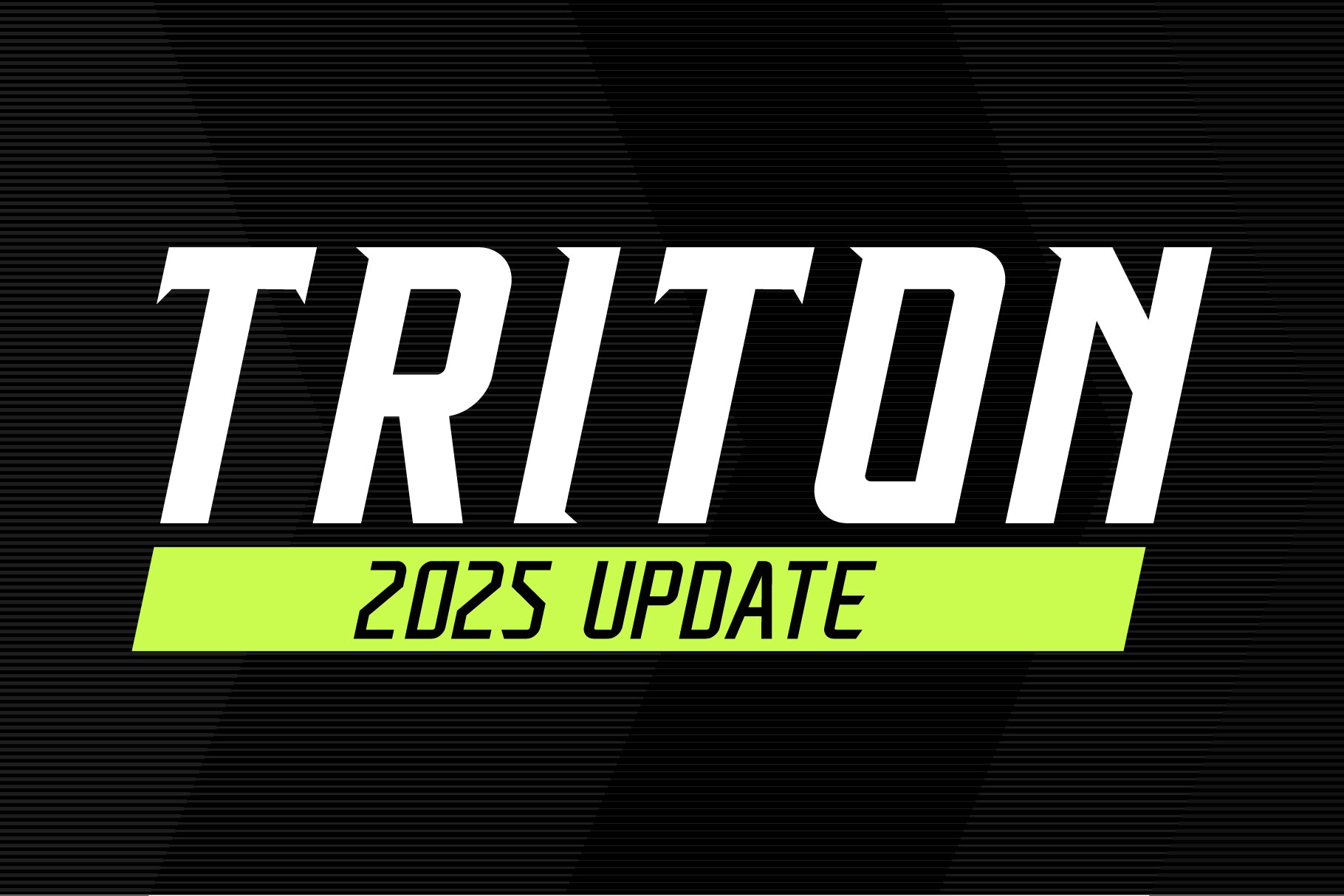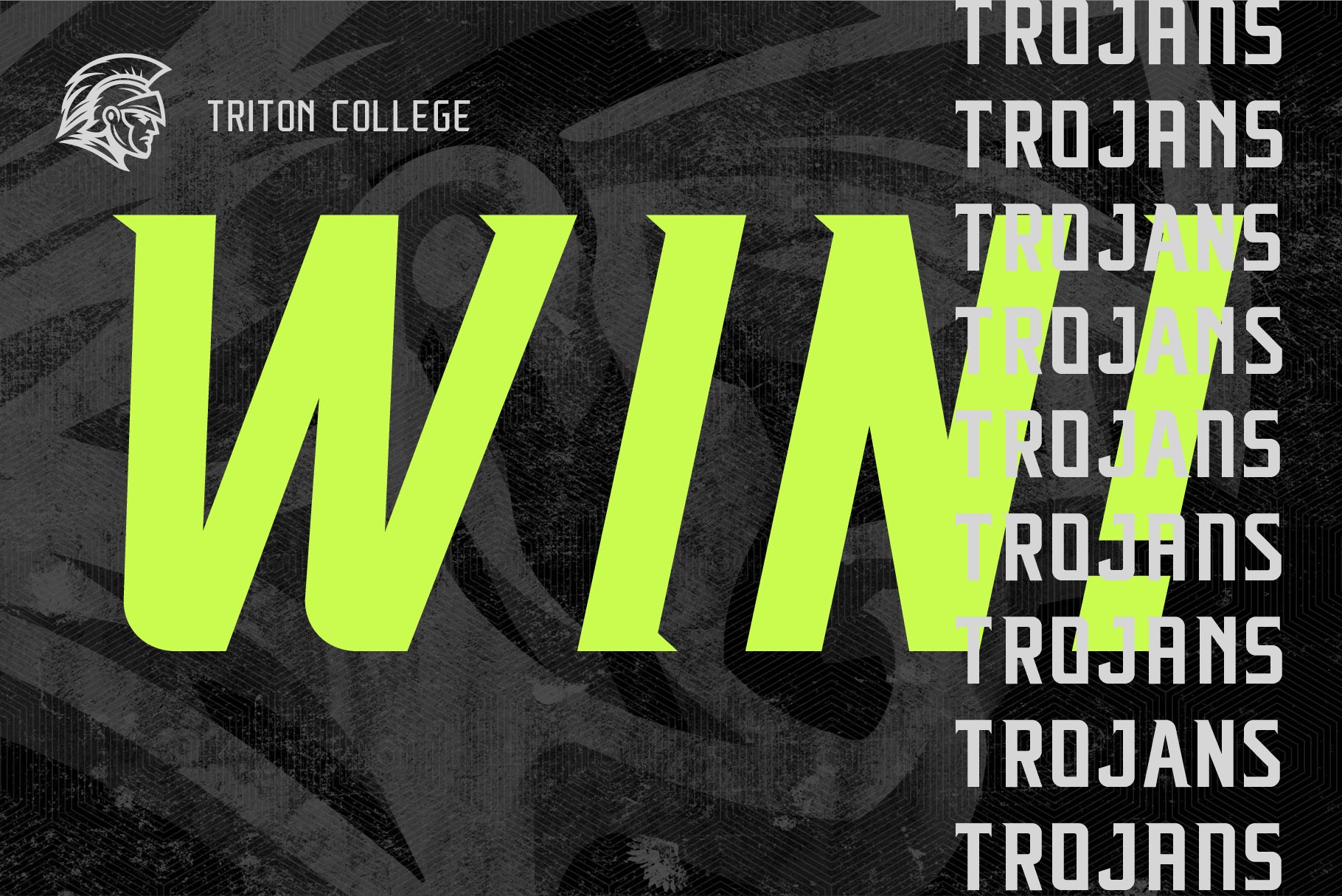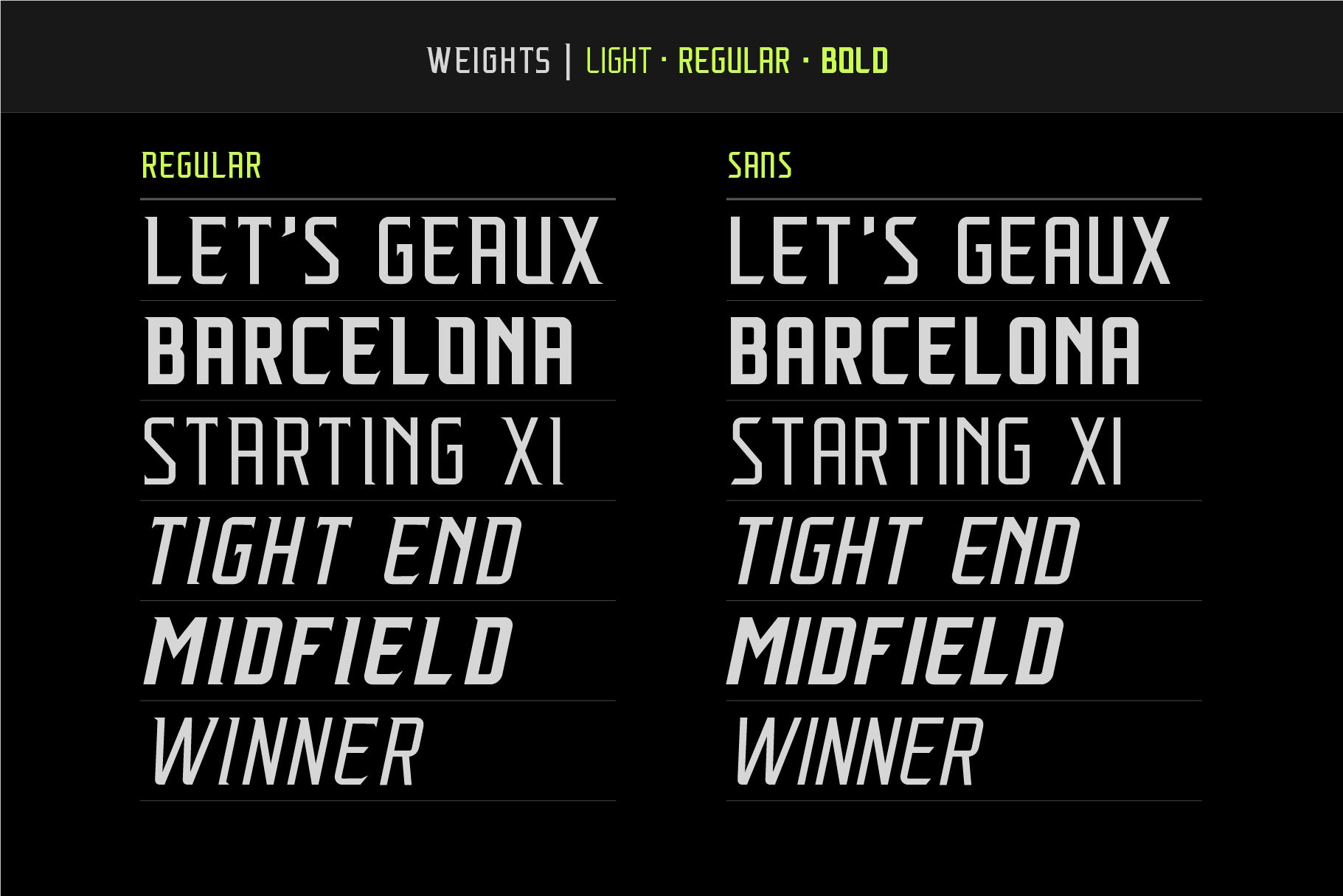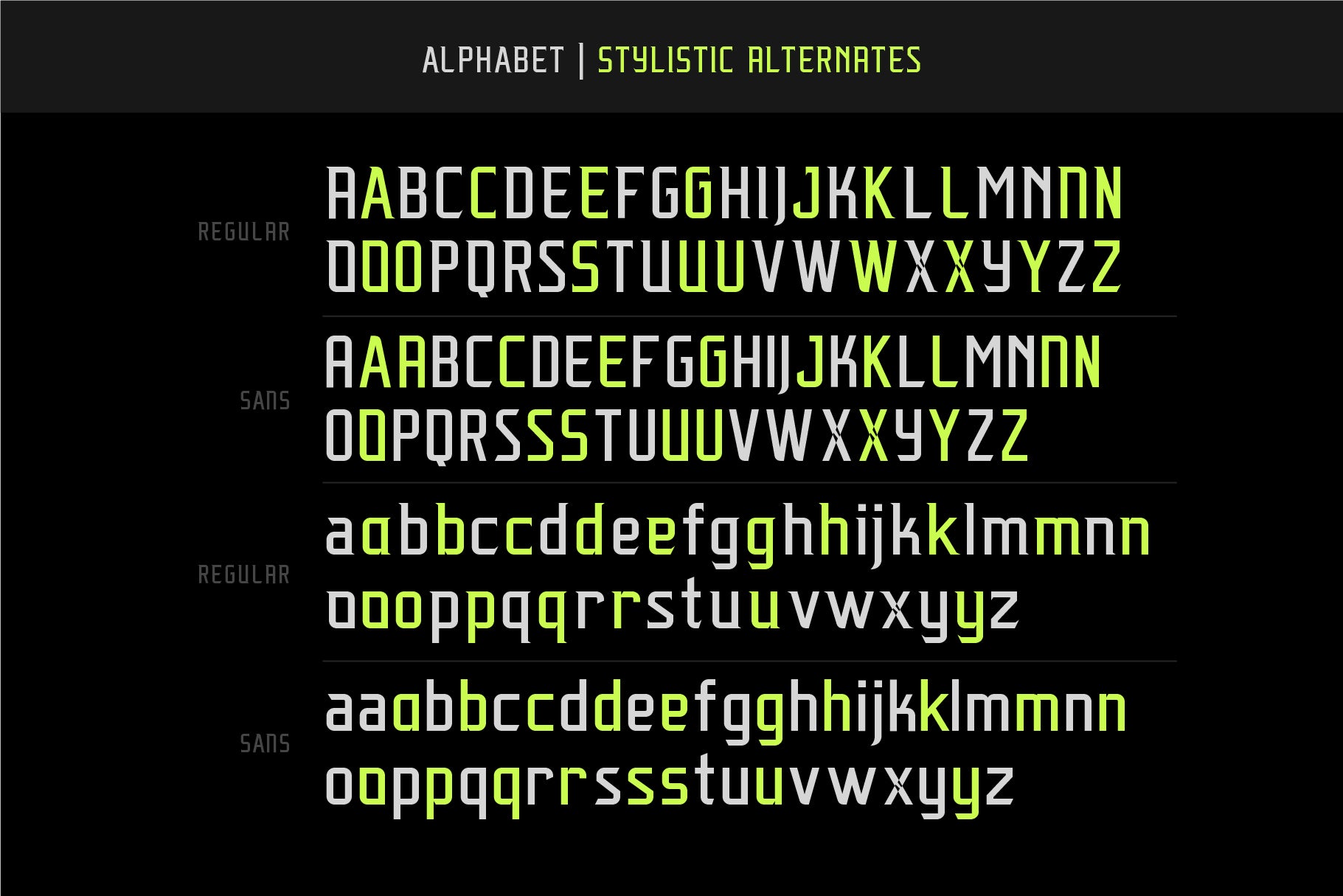
Triton Sports Font Gets Major Update
My best-selling font, Triton Sports Font got a MASSIVE update recently!
What started out as a 2 style + 2 variant font has now become a full-fledged font family for you to use on all of your sports themed designs!
Triton now boasts 6 regular styles and 6 slanted styles in 3 different weights. Lots of variety for you to mix things up in your designs. I've updated the kerning, the spacing, redrew glyphs and in some cases created new ones. Accents? Got you covered, that's been updated and expanded across all 3 weights in upper and lowercase. Don't forget one of my favorite parts of Triton and all fonts...alternate glyphs! Those have also been updated and expanded as well so more ways to change the vibe up.